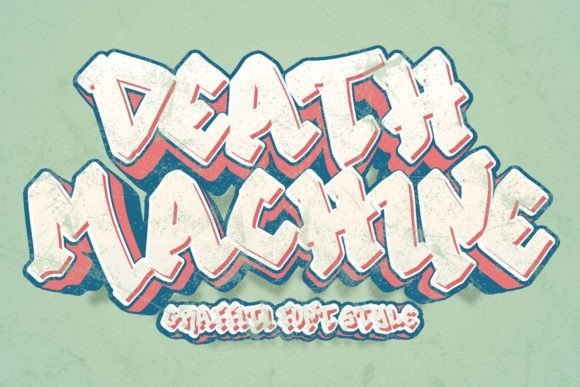
The Perfect Font for the Fearless and the Bold
Have you ever been in the middle of a creative project, staring at a blank page or screen, and suddenly, a spark of inspiration hits? The ideas start flowing, and before you know it, you’re lost in a world of color, texture, and typography. For designers, this moment is what drives us to create something truly special. And for those who dare to be different, the Death Machine Font is the perfect companion.
Death Machine Font is an elegant graffiti font that’s perfect for stickers, posters, tattoos, banners, branding, social media, and so much more. Its unique blend of style and sophistication makes it a valuable asset for designers who want to make a statement. Whether you’re a seasoned pro or just starting out, the Death Machine Font is sure to elevate your designs to the next level.
Key Features of Death Machine Font
- Font Family: Death Machine Font is a sans-serif font family with a unique, industrial aesthetic.
- Unique Characteristics: Death Machine Font features a distinctive, distressed look with rough edges and weathered textures, giving it a post-apocalyptic feel.
- Font Styles: Includes multiple font styles, including regular, bold, italic, and bold italic, allowing for a range of design options.
Death Machine Font Review
At first glance, the Death Machine font is a striking, edgy font that’s sure to grab attention. ✨ The bold, mechanical feel is reminiscent of industrial machinery, and the distressed texture adds a level of grittiness that’s perfect for punk rock or sci-fi designs.
Some of the strengths of the font include:
- ✨ High contrast between the bold lines and distressed texture, making it great for creating visually striking headlines.
- ✨ Unique, futuristic feel that’s perfect for designers looking to add a touch of edginess to their projects.
- ⚠️ Limited character set, which may cause issues for designers working with non-English languages.
- ⚠️ Font may not be suitable for use in small text sizes, as the distressed texture can become difficult to read.
- ⚠️ May not be suitable for use in more traditional or elegant design contexts, as the font’s edgy feel may clash with the tone of the project.
Overall, the Death Machine font is a great choice for designers looking to add a touch of industrial grittiness to their projects. While it may have some limitations, its unique feel and high contrast make it a great option for designers who want to make a statement.
Use Death Machine Font to create bold and edgy designs that grab attention.
Pair the font with dark and gritty backgrounds to enhance its impact.
Experiment with different font sizes and styles to create a unique look.
Use Death Machine Font for:
Posters and flyers
Social media graphics
Video game and movie title sequences
Edgy blog and website designs